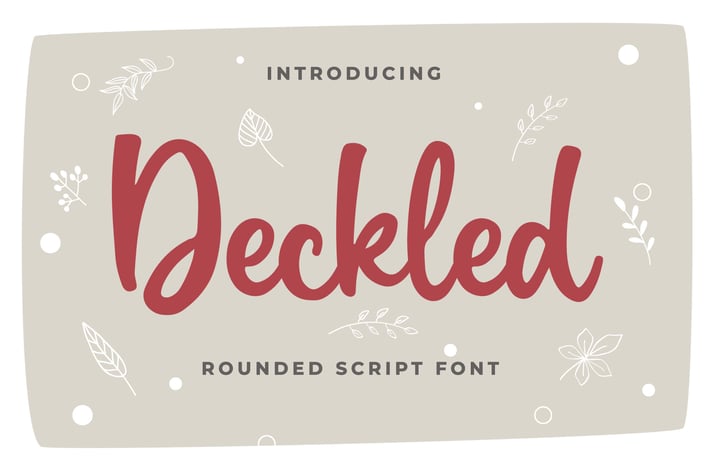
Deckled Rounded Script Font
Introducing of our new product the name is Deckled Rounded Script Font inspired by bouncy script style this font is a fun theme very good for display, tshirt design, craft, quote sign, logotype and etc